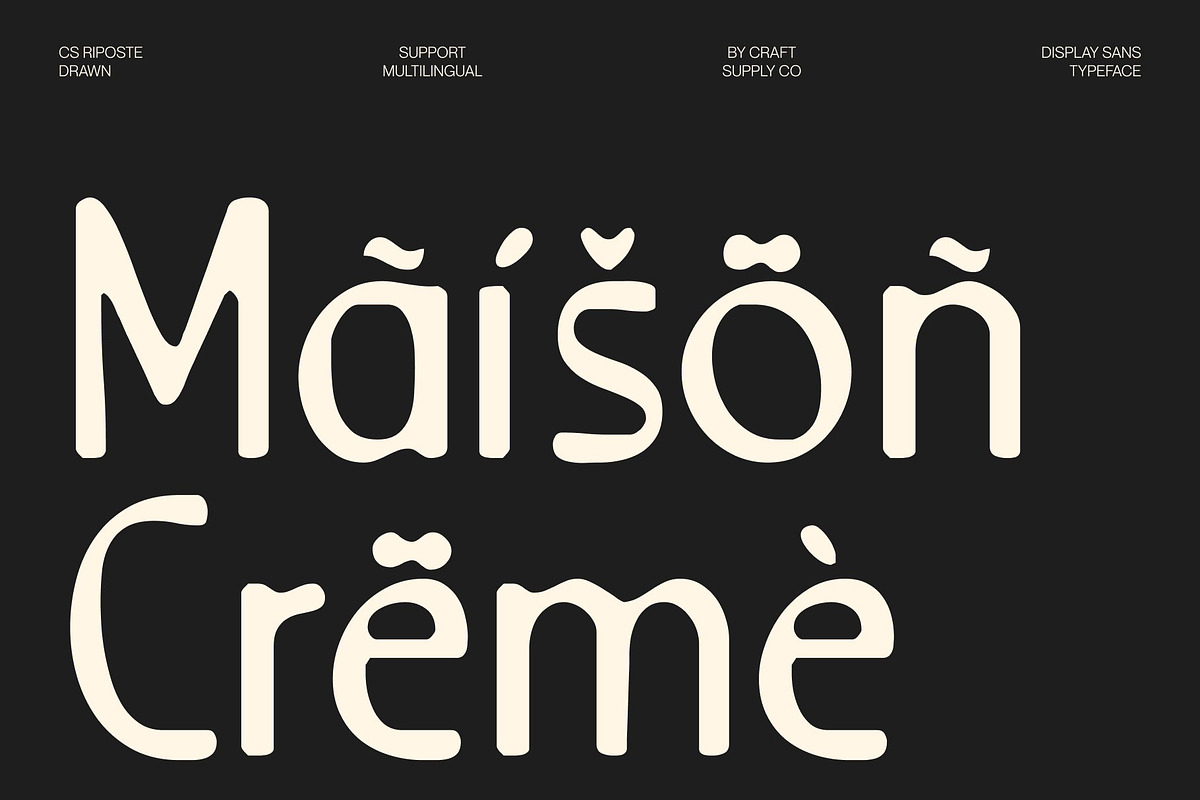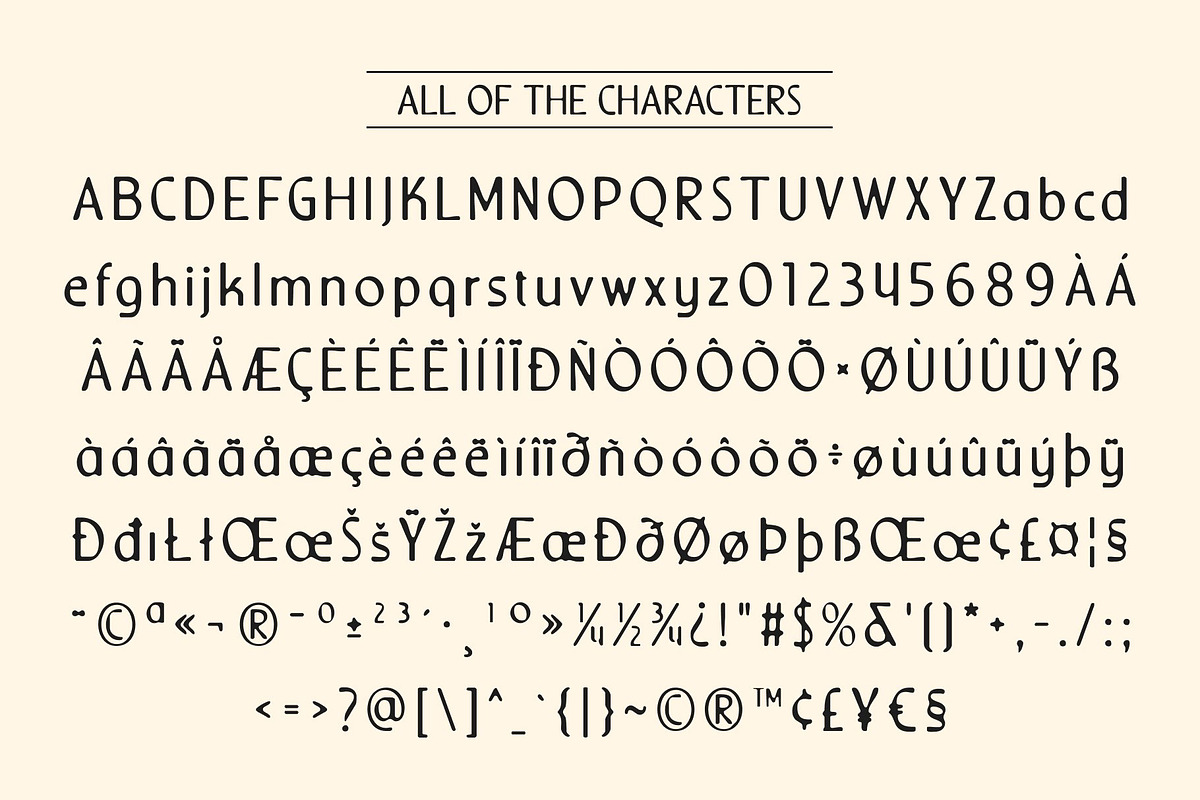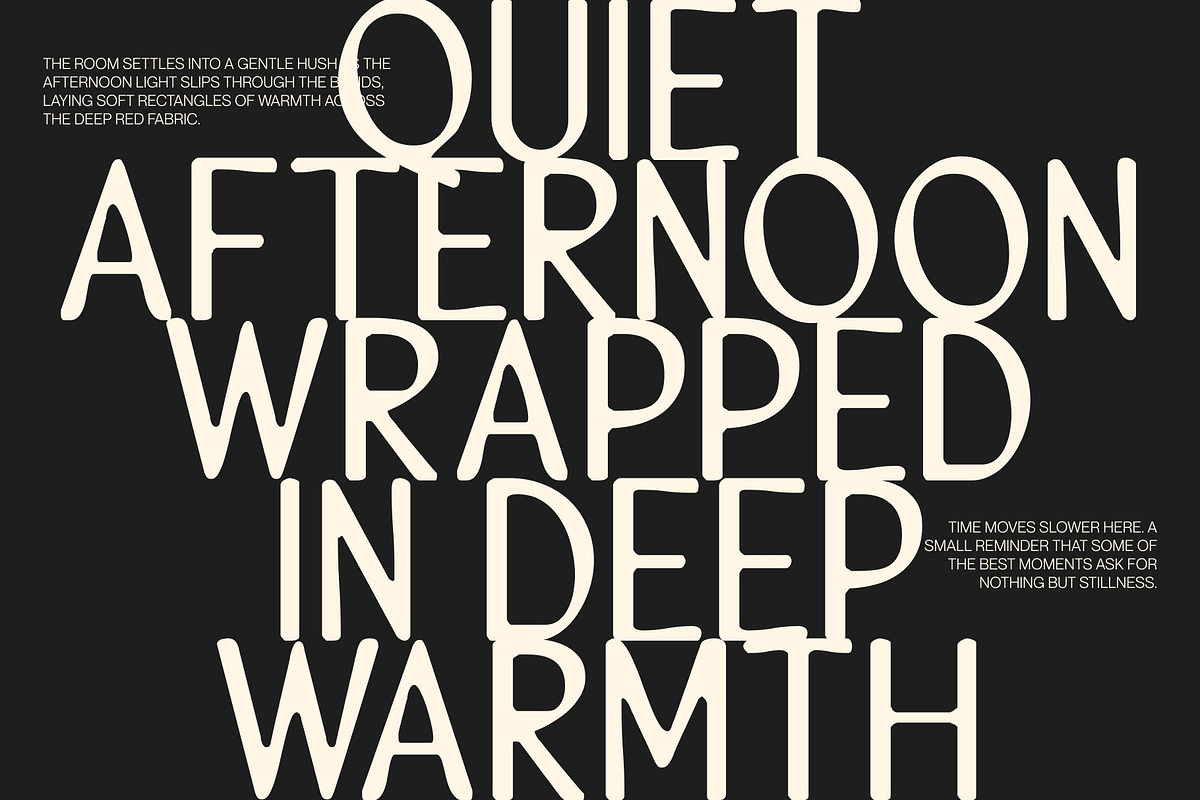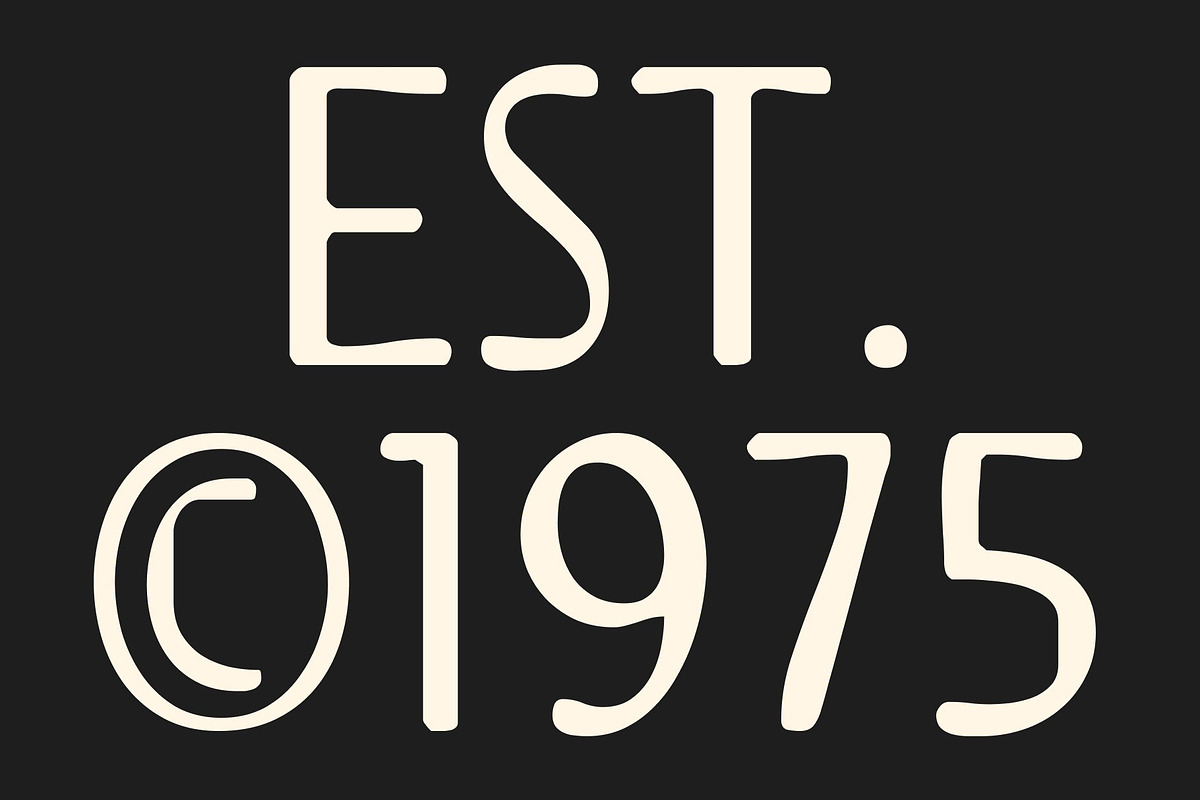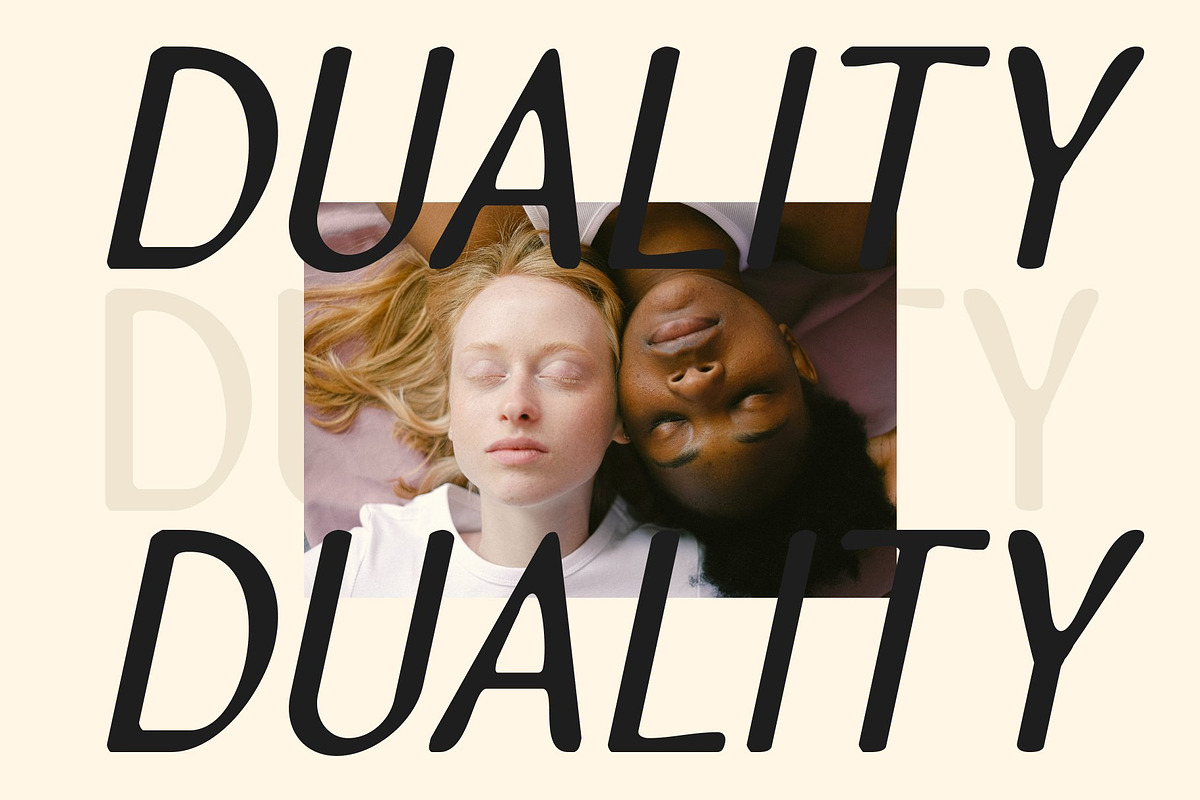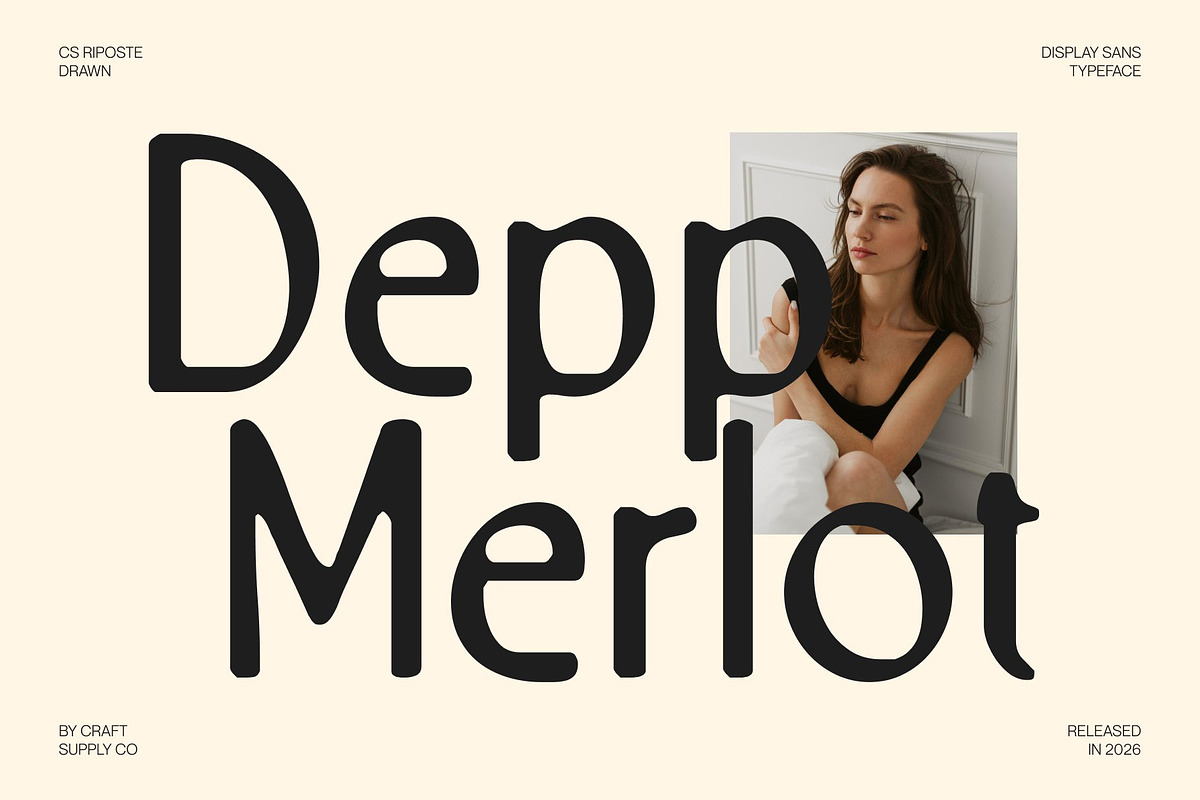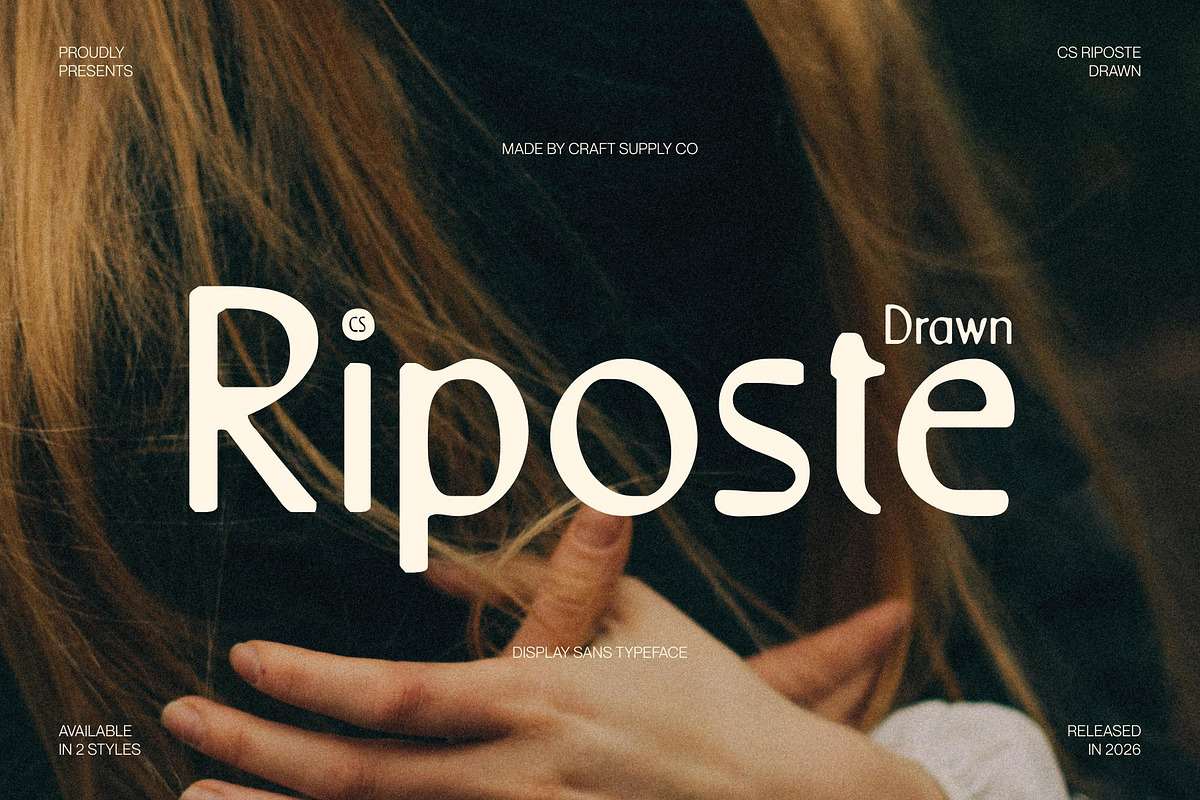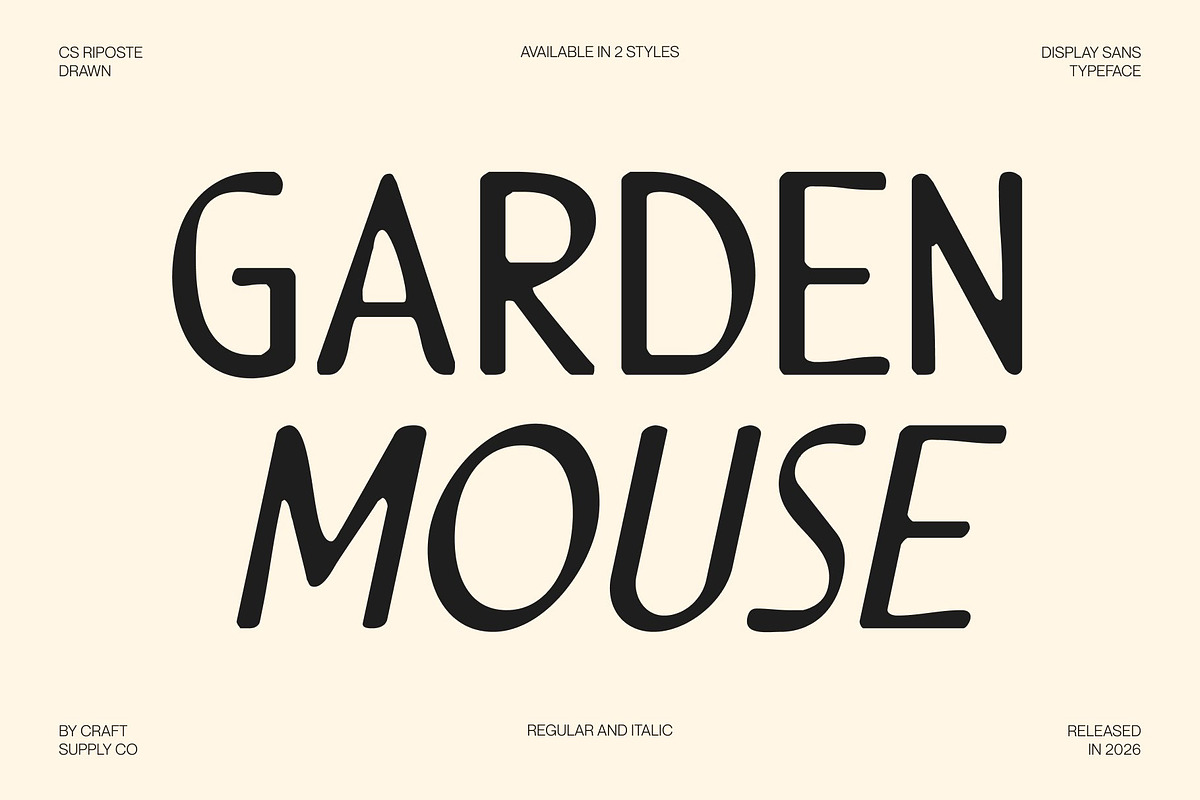
CS Riposte Drawn
CS Riposte Drawn – Fresh Modern Clarity with Stylish Confidence
Modern Sans Serif with Clean Structure and Hand-Drawn Detail This is a modern sans serif font crafted with a clean and fresh design approach, enhanced by a subtle hand-drawn texture. Its well-balanced structure and refined proportions create a polished, professional presence without feeling stiff or overly formal. The drawn finish introduces warmth and individuality, giving the typeface a contemporary yet approachable character.
Clean Letterforms with Expressive Freshness Built on simplicity and precision, the letterforms feature smooth lines, consistent stroke weight, and thoughtful spacing for strong readability. The subtle handcrafted nuances soften the geometry, preventing the design from appearing too mechanical. This balance creates a fresh, stylish look that feels modern while maintaining clarity and focus.
Professional Tone with Creative Flexibility This font strikes a natural harmony between credibility and creativity. Its modern design language communicates sophistication, while the gentle drawn texture adds personality and relaxed confidence. The font adapts effortlessly to both structured layouts and more expressive compositions.
Ideal for Branding, Editorials, and Creative Projects Perfect for branding, posters, editorial layouts, packaging, and digital design, this font delivers stylish clarity across various applications. Its clean sans serif form combined with subtle handcrafted character makes it an excellent choice for modern brands, magazines, campaigns, and visual storytelling that demands confidence with warmth.